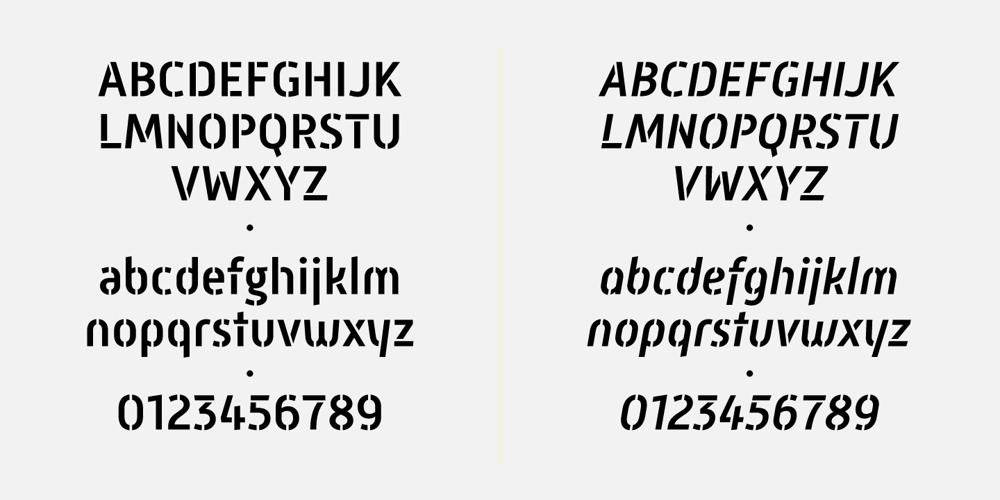
Mic 32 New Stencil Font Family was designed by Chris Dickinson and published by moretype. Mic 32 New Stencil contains 8 styles and family package options. Mic 32 New Stencil is the third variation of the popular Moretype family Mic 32 New. This stencil version provides an industrial flavour to the futuristic rounded geometry of Mic 32 New. Mic 32 New Stencil still has all the normal Opentype features including small caps, tabular, proportional and old style numerals and ligatures.